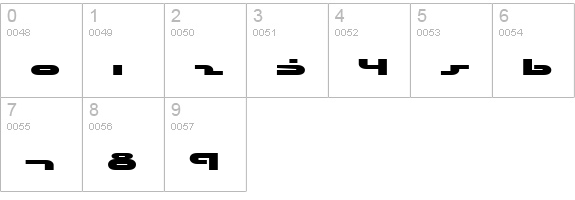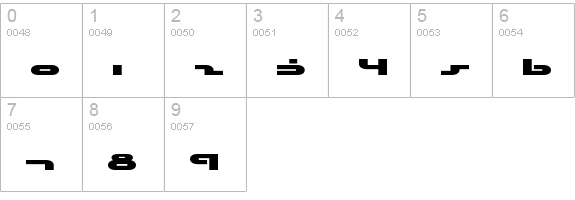
uni-sol expanded Font Details
uni-sol expanded is a distinctive, extended-width variant in the uni typeface family \xE2\x80\x94 well suited to design and typography projects.
Introducing Uni-Sol Expanded Font, a versatile and dynamic typeface that will add a touch of elegance and modernity to your designs. This font is skillfully crafted with a unique expansion, making it perfect for headlines, logos, posters, and any other project that requires a bold and eye-catching typographic statement. Uni-Sol Expanded Font offers a wide range of characters, including uppercase and lowercase letters, numbers, punctuation marks, and special symbols, allowing you to express your creativity without limitations. Its sleek and stylish design exudes confidence, making it ideal for fashion, beauty, technology, and lifestyle brands. What sets Uni-Sol Expanded Font apart is not only its exceptional quality but also its accessibility. We believe that great design should be available to everyone, which is why Uni-Sol Expanded Font is offered free of charge. Yes, you read that right - this remarkable font can be freely downloaded at FontsMarket.com, ensuring that designers of all backgrounds and budgets can benefit from its outstanding features. Whether you're a professional designer or a passionate hobbyist, Uni-Sol Expanded Font will become an invaluable asset in your creative arsenal. Its versatility and eye-catching appeal will effortlessly elevate your designs, adding a touch of sophistication and professionalism. So why wait? Unlock the full potential of your designs with Uni-Sol Expanded Font, the free and freely available typeface that will breathe new life into your projects. Download it today at FontsMarket.com and embark on a design journey that knows no limits.